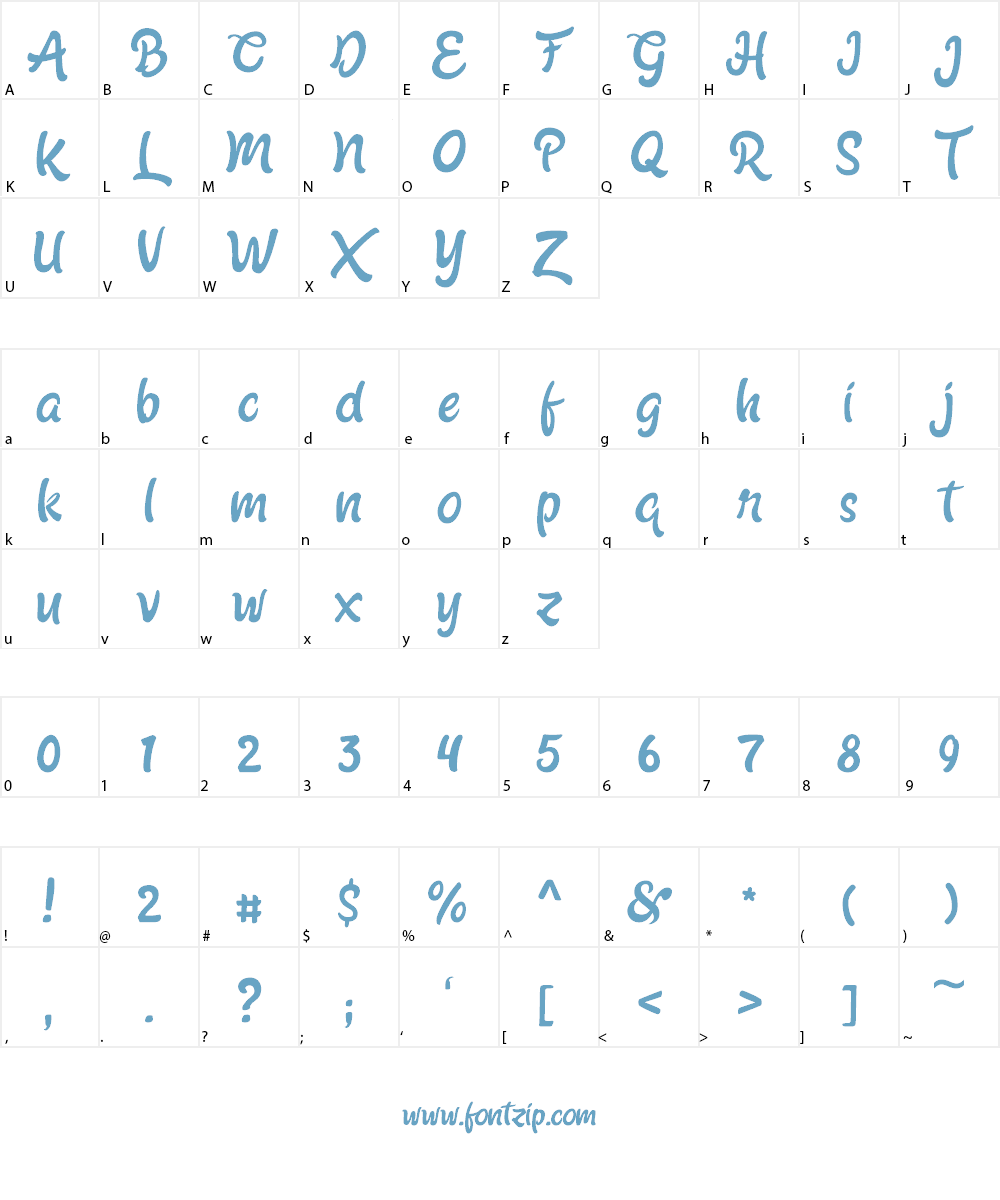
An unconnected brush script named Shabrina. A font family that is inspired by retro / vintage chocolate biscuit packaging that looks beautiful, yet yummy, fresh & delicious, even fashionable!